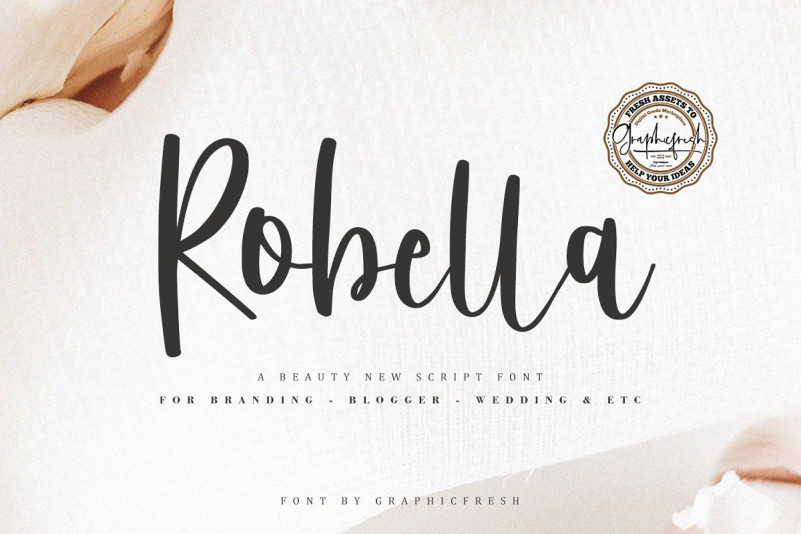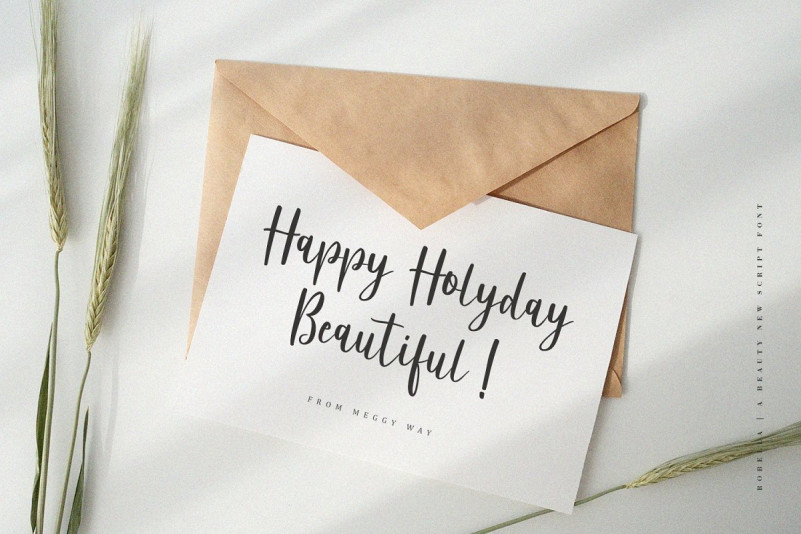
Robella Font
Robella // A Beauty Script Font. It comes with an elegant, cute and feminine style which is perfect to make any design stand out! This font is perfect for branding, wedding invites, magazines, mugs, business cards, quotes, posters, and more.